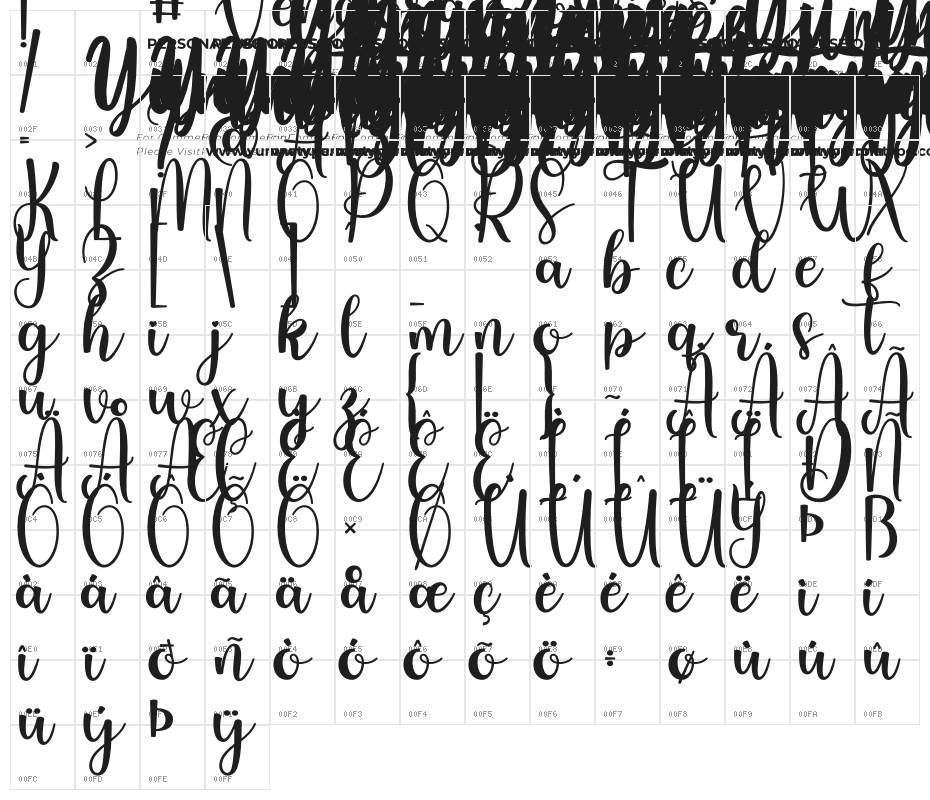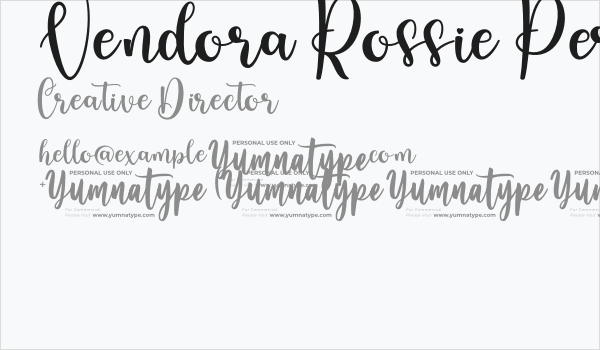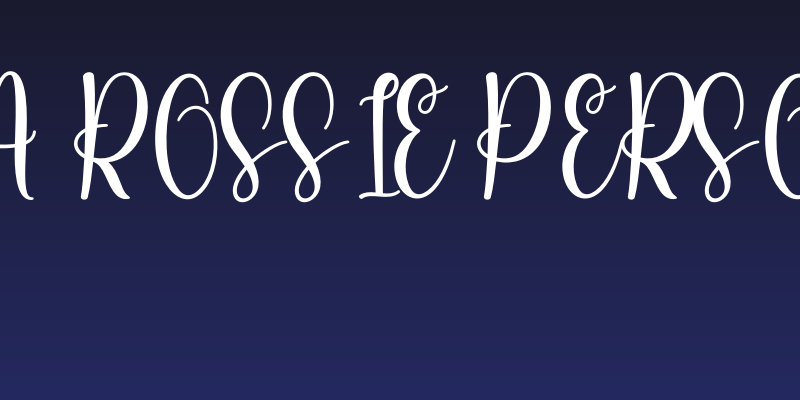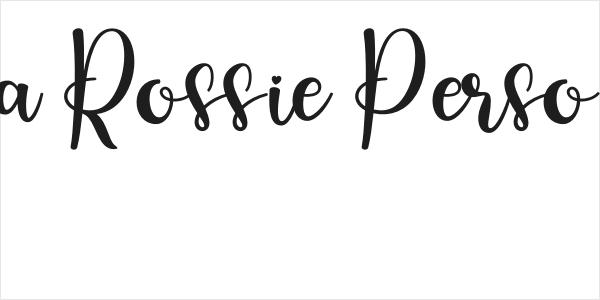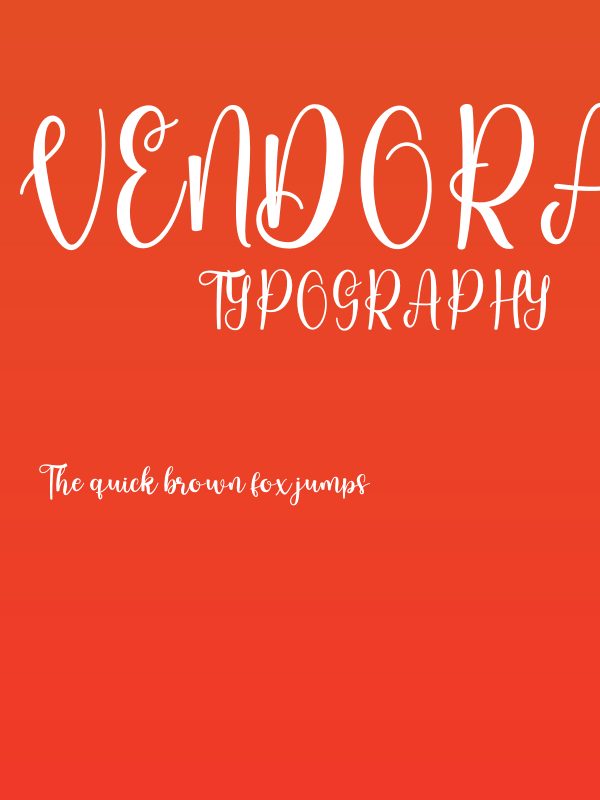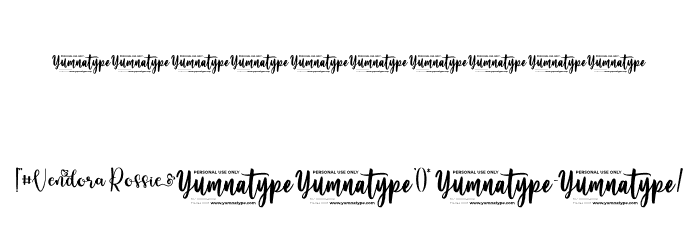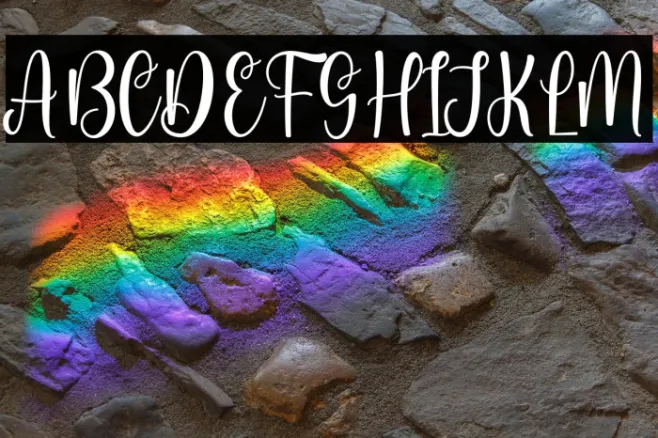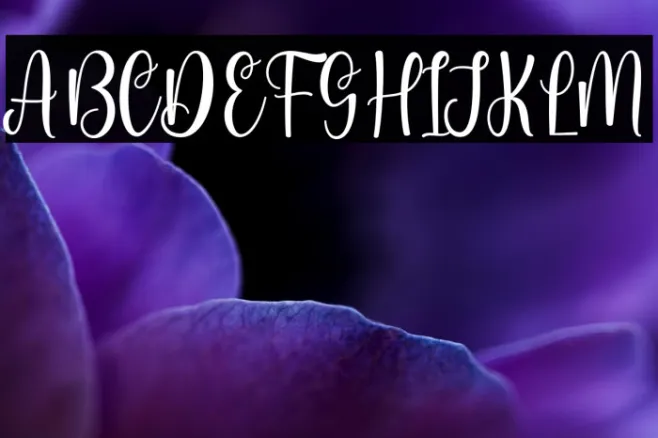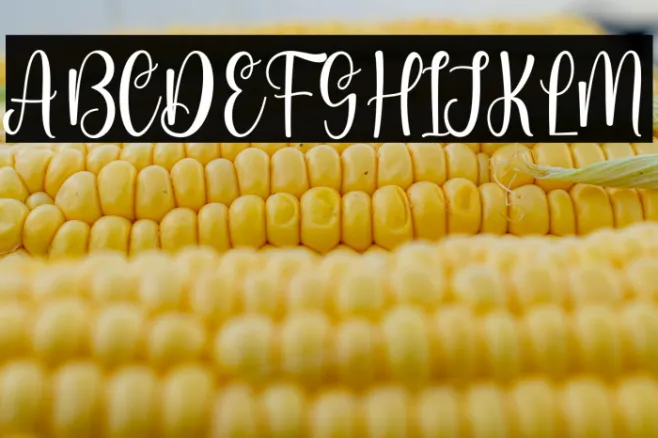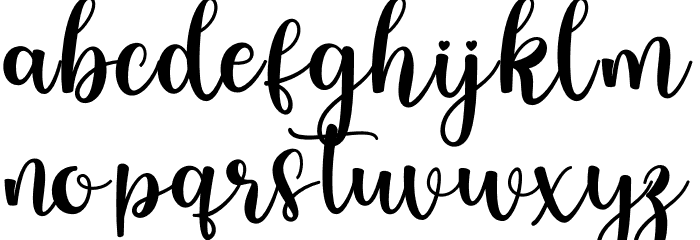
Vendora Rossie Personal Use Font
Vendora Rossie Personal Use Description
This font exhibits a lively and flowing script style, characterized by its elegant and fluid letterforms. The uppercase letters are tall and slightly narrow, with distinctive loops and swirls that add a sense of movement and grace. The lowercase letters maintain a consistent rhythm, featuring smooth curves and a playful bounce. The overall design is both sophisticated and approachable, making it suitable for a variety of creative projects. The font's bold strokes and high contrast enhance its readability while maintaining an artistic flair. This script font is perfect for adding a personal touch to invitations, branding, and decorative designs.
| Use Case | Logos, Headlines, Invitations |
| Proposed Projects | Ideal for wedding invitations, branding, greeting cards, and decorative projects. |